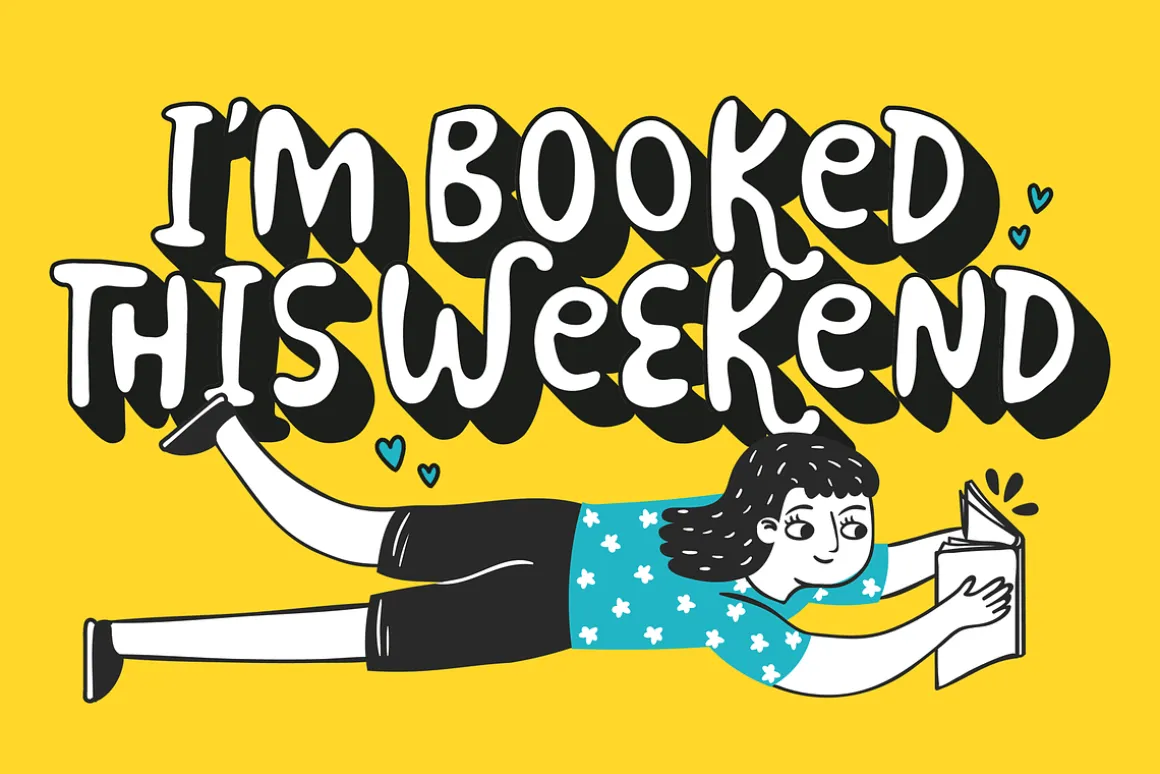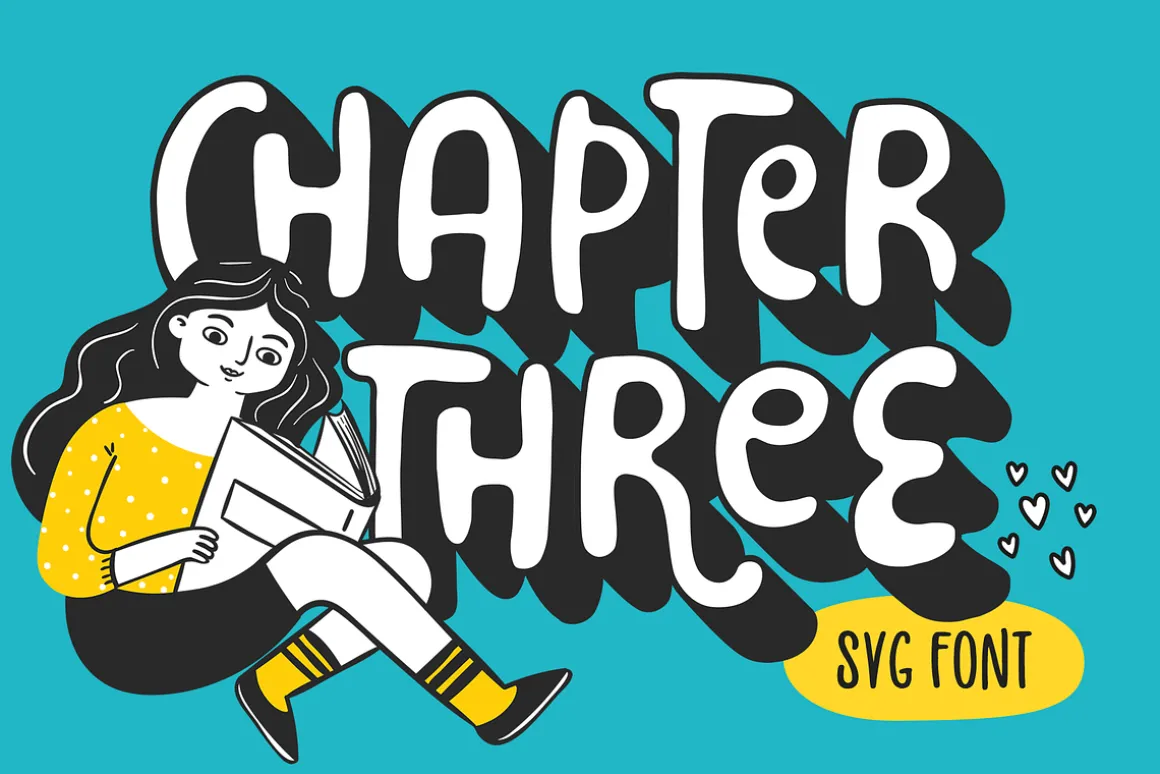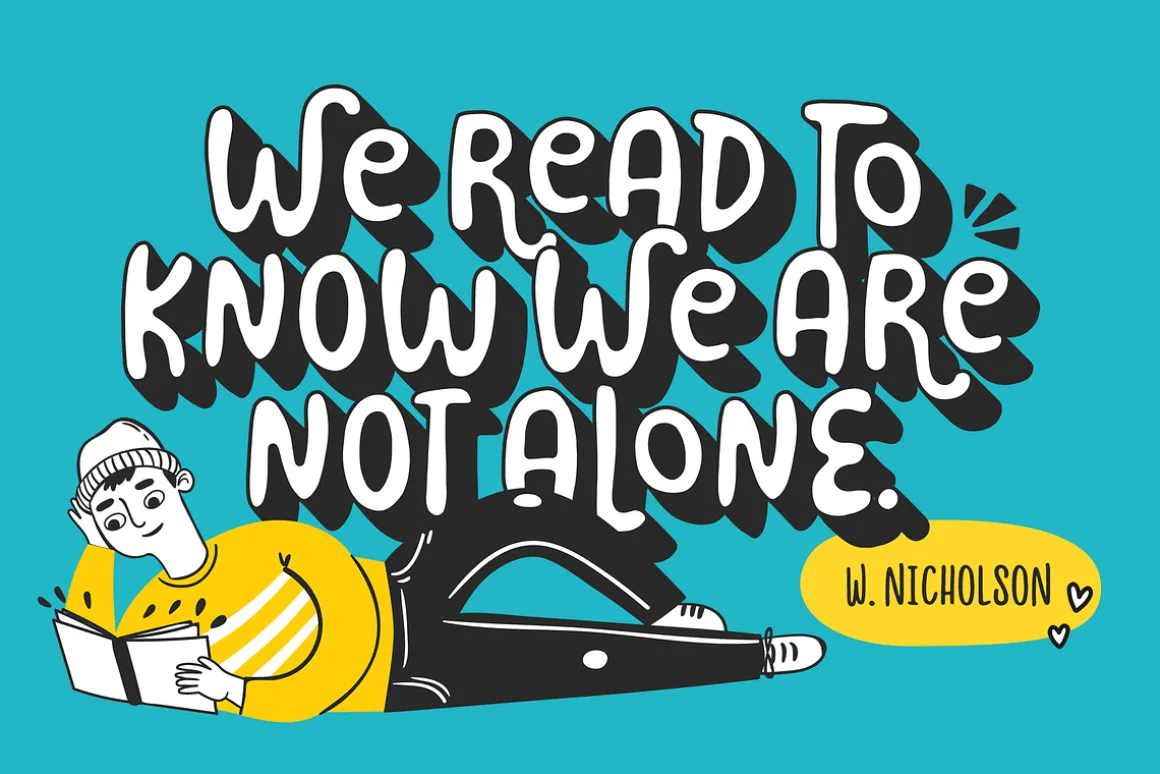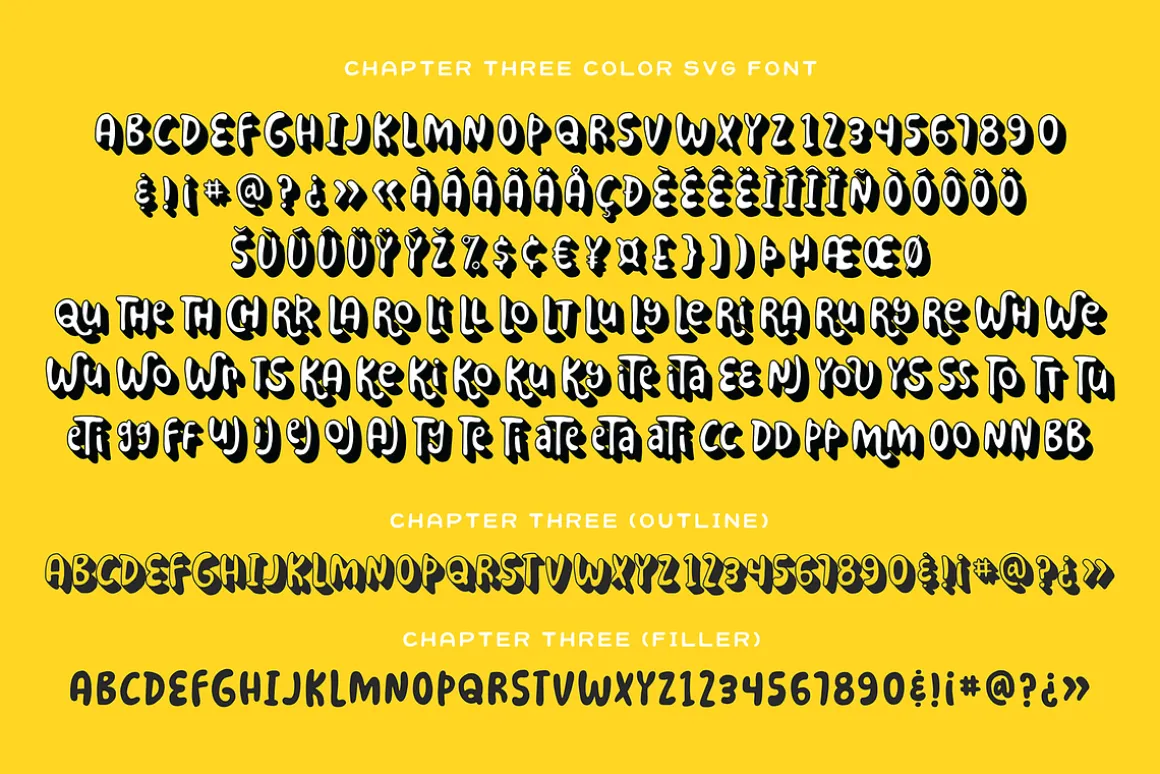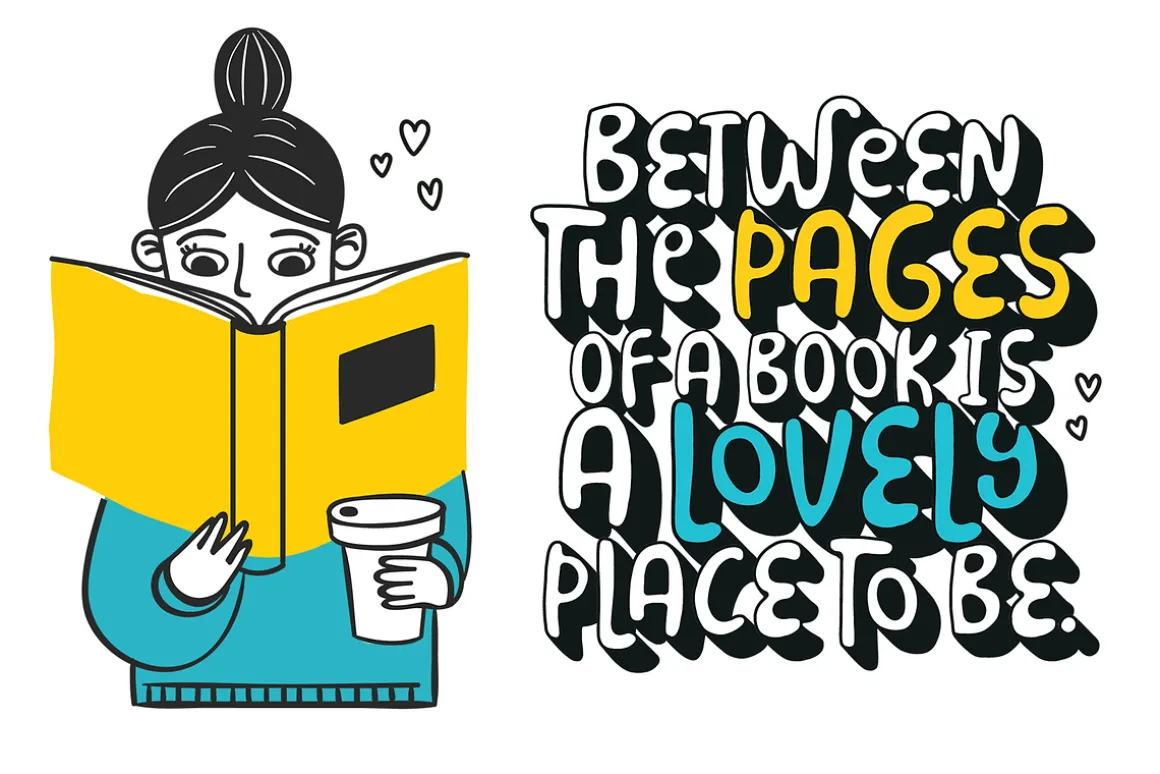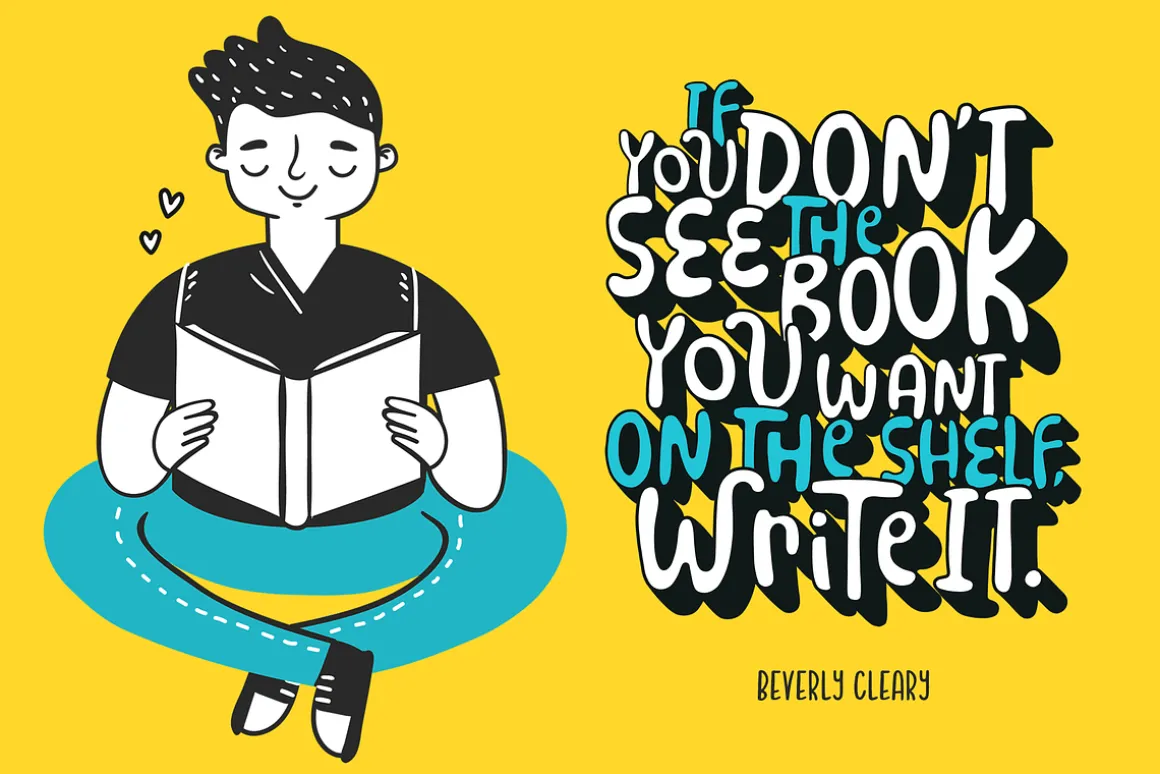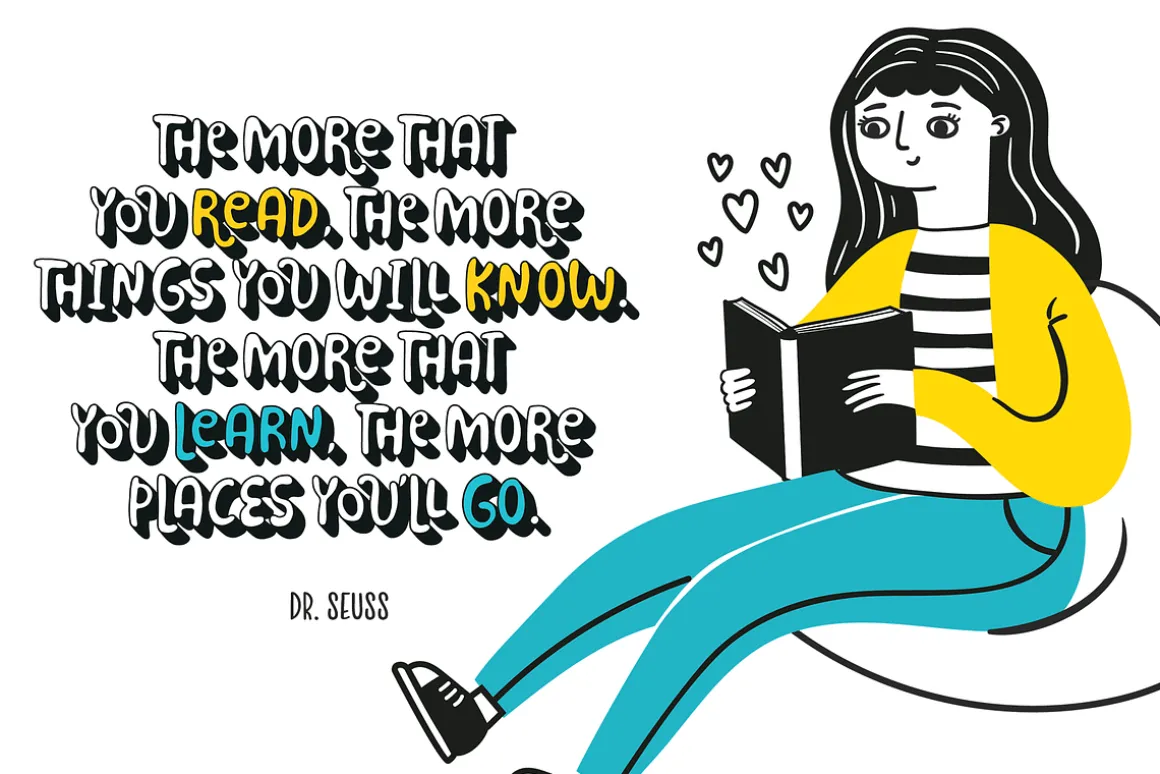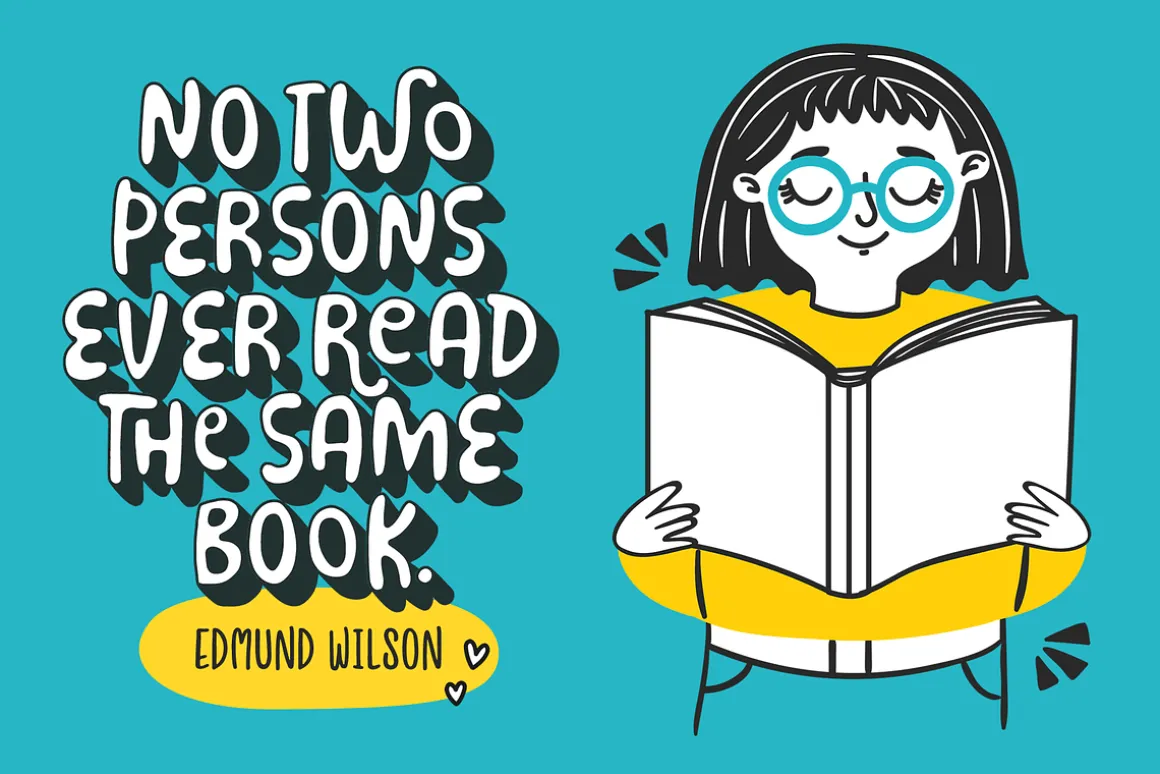
Introducing Chapter Three font! A bubbly hand-drawn font with a solid drop shadow and a bunch of fun ligatures. To get a proper overlap look, you’ll need to use the color SVG version. OpenType-SVG fonts can be used in programs like Photoshop CC 2017+, Illustrator CC 2018+, or InDesign CC 2019+. Ligatures will appear automatically when using programs that support OpenType and have the feature turned on. I’ve also included outline and filler versions in regular OTF format for use in programs that don’t support color SVG fonts.